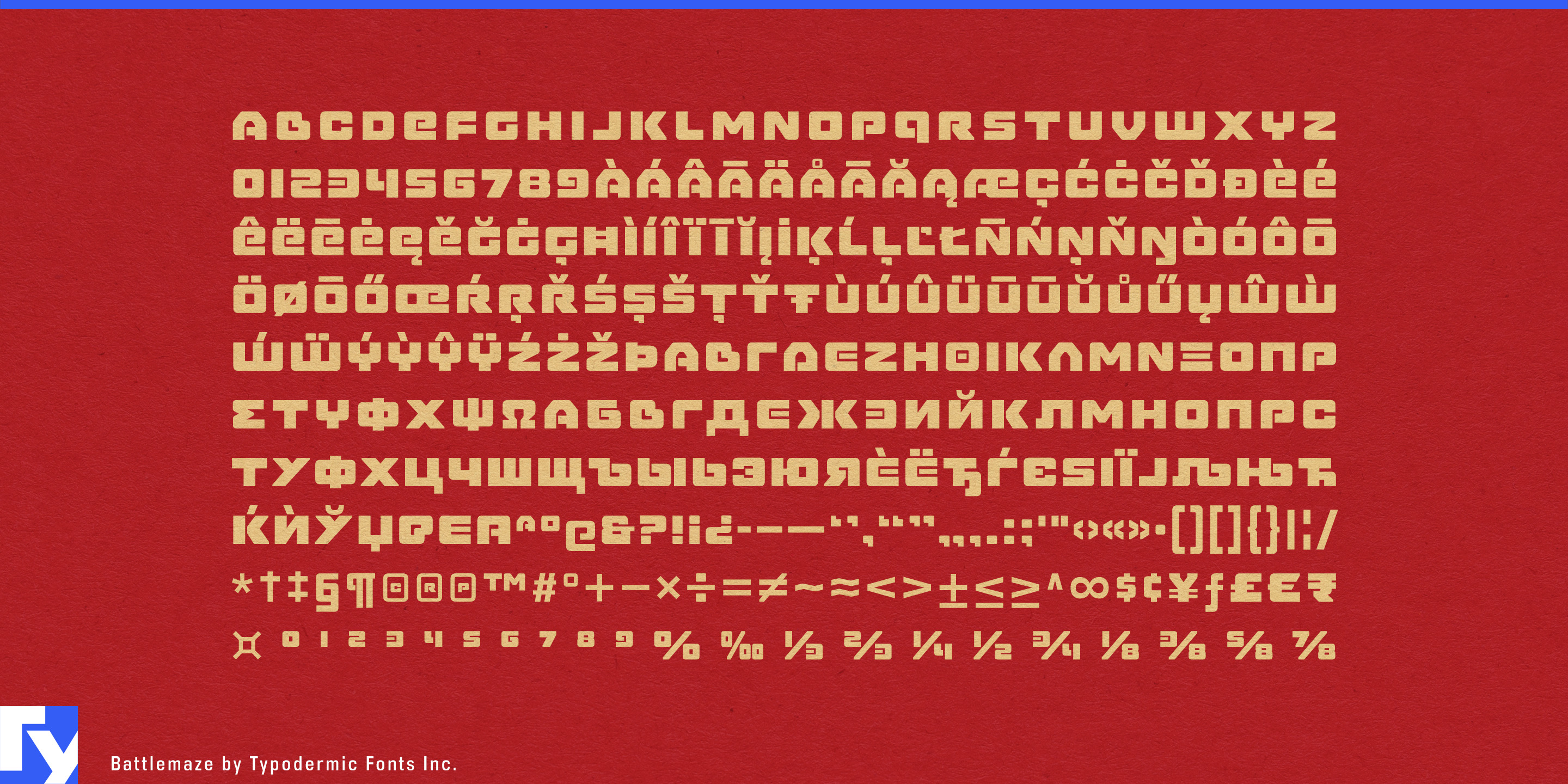
Battlemaze
Heavy mechanical lettering often gets reduced to armor plating, rivets and generic sci-fi aggression. Battlemaze works from a different idea: broad strokes travel through a rigid geometric system, turning each letter into a heavy path through a grid.
Its wide, squared forms bend around corners, double back and continue through the alphabet with an almost routed quality. The result feels mechanical without relying on distressed surfaces or decorative hardware; its visual ancestry reaches toward the broad continuous geometry of 1970s aerospace lettering, pushed into something much heavier and more compact.
Combat robotics gives that structure a particularly convincing home. Robot names, team identities, armor-panel decals, pit banners and event titles can use Battlemaze at the scale where its weight becomes part of the machine. Factory automation extends the same idea into conveyor systems, pallet shuttles, robotic cells and automated warehouses, where equipment names and trade-show headings can echo the controlled paths running through the machinery itself.
Forklifts, compact loaders, tracked utility vehicles and snow groomers provide another natural setting. Battlemaze’s width and mass become advantages when a short model name needs to occupy a large piece of steel. Grid-based games offer a related application: turn-based tactics, hex-grid strategy and tabletop wargames can use it for faction names, sector headings and unit classifications.
Battlemaze is strongest when a short name needs to feel engineered into a system; combat robots, conveyor lines, industrial vehicles and tactical factions all give its heavy routed geometry somewhere useful to belong.